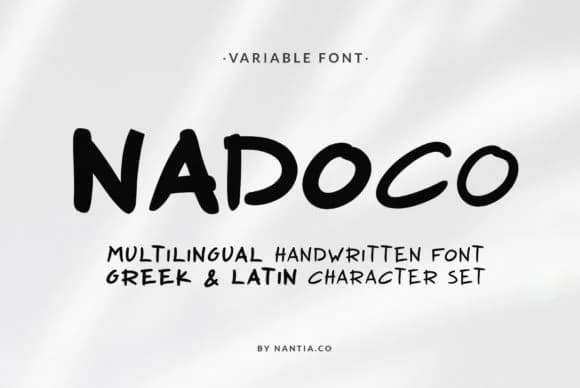
You're designing a wedding invitation suite, hunting for something that feels both personal and polished. Nadoco, created by nantia, is the handwritten script that captures exactly that balance. Its strokes carry genuine character without sacrificing legibility, making it work beautifully in contexts where looser scripts feel too informal or typefaces that are overly refined feel cold and impersonal.
This font performs across several design territories. Personalized gift tags and greeting card designs gain warmth and personality from its approachable tone. Artisanal product packaging and small-batch cosmetics labeling gain authenticity when set in Nadoco. Restaurant menu titles and event signage showcase what this typeface does best: inject genuine personality into professional work without feeling forced or overwrought. The font ships in five distinct weights, ranging from Light to Extra Bold, so you can shift visual weight depending on hierarchy needs and the scale at which you're designing.
What makes Nadoco stand out is how it reads at larger sizes without losing any character or charm. Those five weights also give you the flexibility to pair lighter versions for body text with bolder cuts for headlines and titles. Pick up Nadoco on Creative Fabrica and add this handwritten warmth to your next project.
- Elegant, Flowing, Nadoco Medium
Nadoco Font is a script font that shines as a display or heading face. Pair it with a clean sans-serif or serif font for body text β the contrast creates a clear hierarchy while the two styles stay balanced and easy to read.
Nadoco Font
by nantia